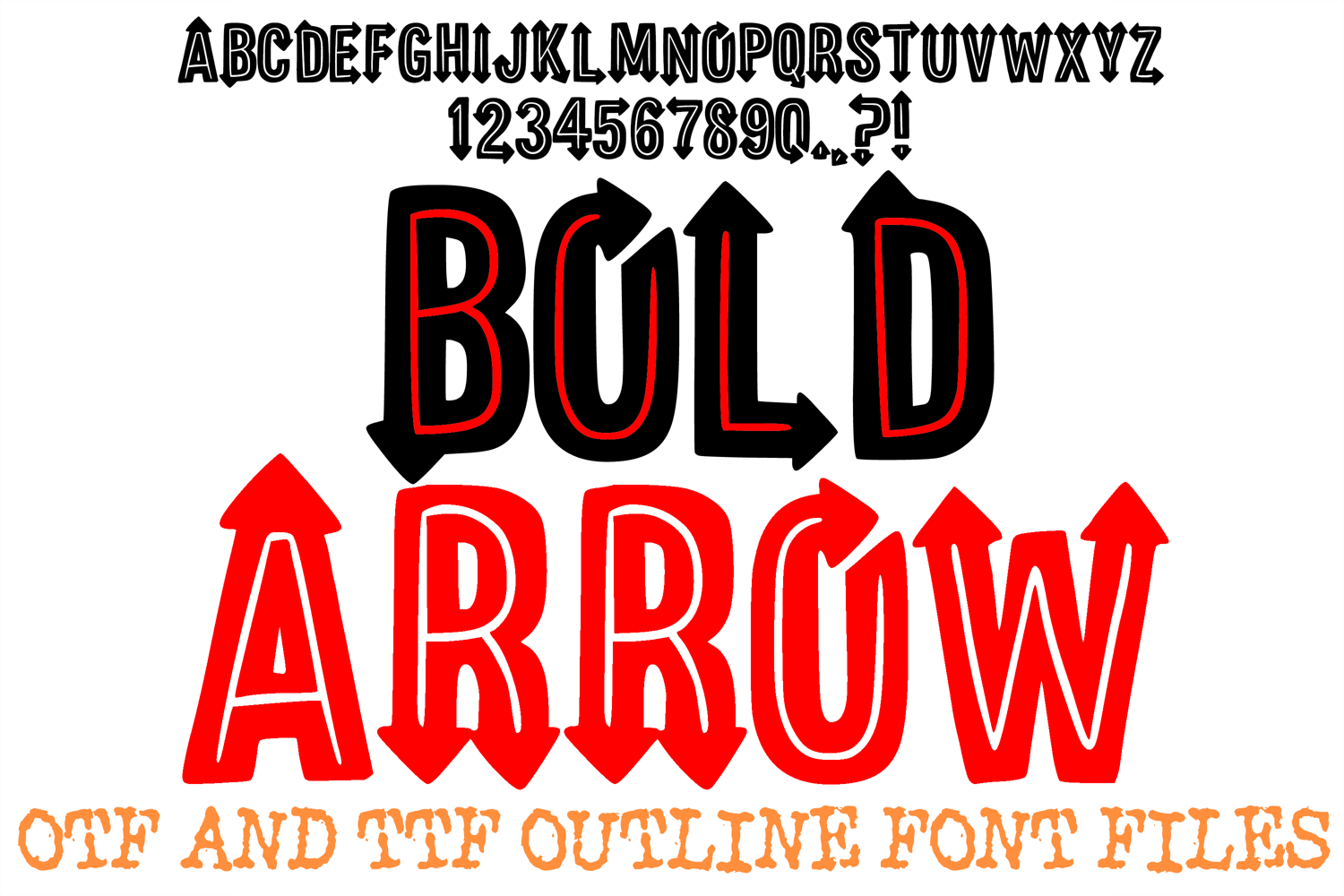
Bold Arrow ABC Font Typeface Alphabet OTF TTF Illustration
Inject a punchy, athletic energy into your designs with Bold Arrow, an installable display font featuring heavy, blocky letterforms accented with crisp arrow terminals and double-line inline detailing. Combining a strong geometric structure with dynamic directional arrows, this typeface commands attention across print and digital media.
Ideal For:
Apparel & Merchandise: Urban streetwear, sports jerseys, team t-shirts, hoodies, and athletic accessories.
Crafts & Vinyl Projects: Decals, stencil designs, craft machine creations, and print-on-demand layouts.
Graphic Design & Branding: Event posters, bold headlines, logo badges, social media banners, and stickers.
Signage & Party Decor: Directional signage, party banners, sports event decor, and promotional flyers.